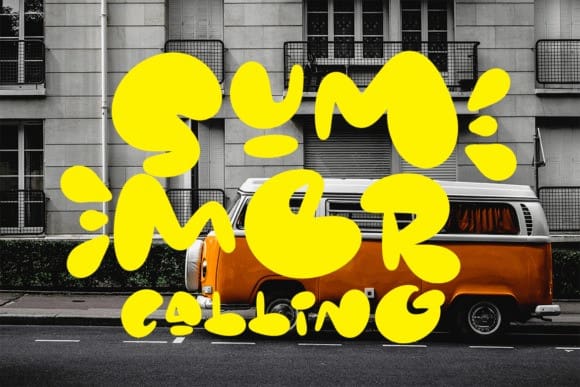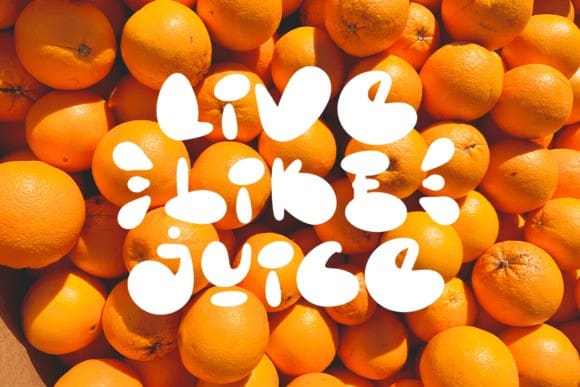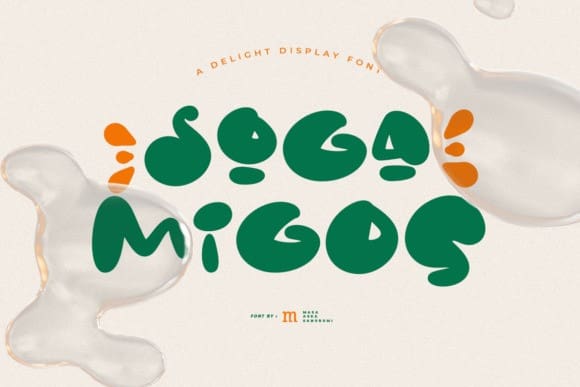
Soga Migos Font
Soga Migos Font is a versatile and playful display font, perfect for a wide spectrum of applications such as greeting cards, headlines, and many more! Add it to any of your creative projects, and it will give them a clean and exquisite feel.